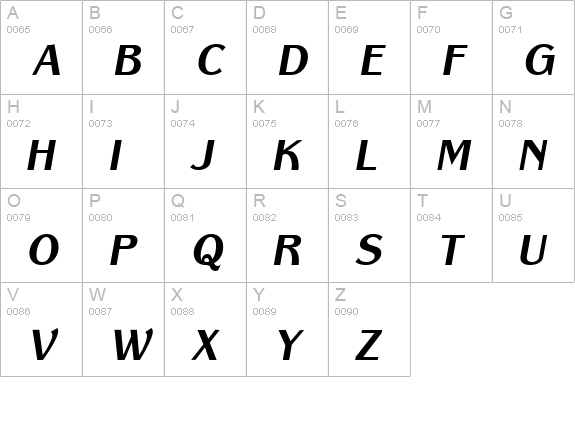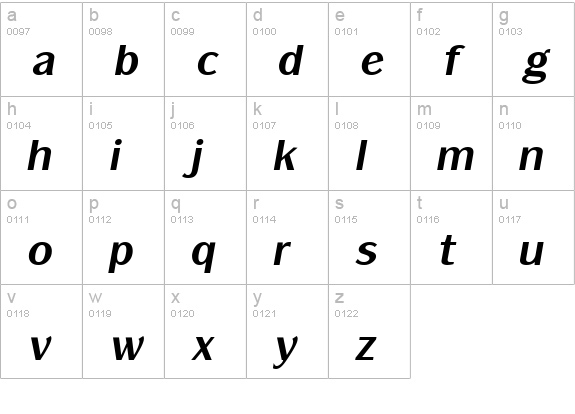
Panache Bold Italic is a strong, high-contrast, italic variant in the Panache typeface family \xE2\x80\x94 well suited to headlines, attention-grabbing titles, and strong calls-to-action.
Panache Bold Italic font is a stunning and captivating typeface that exudes confidence and sophistication. Its bold, italicized design adds a touch of elegance and flair to any project or design. With its sleek and sleek lines, Panache Bold Italic font is the perfect choice for creating eye-catching headlines, stylish logos, or striking branding materials. This font effortlessly combines the classic and the contemporary, making it versatile for a wide range of design purposes. Whether you're creating a modern website, designing a sleek magazine layout, or crafting a unique invitation, Panache Bold Italic font is sure to make a lasting impression. One of the best features of Panache Bold Italic font is its availability as a free download at FontsMarket.com. This means that you can easily access this remarkable font without any cost or hassle. Gone are the days of searching high and low for the perfect font – Panache Bold Italic font is just a few clicks away. With its generous range of characters and glyphs, Panache Bold Italic font allows for endless creative possibilities. The elegant curves and bold strokes effortlessly capture attention, while the italicized slant adds a touch of sophistication. Whether used in print or online, this font is sure to elevate your design to new heights. So, why wait? Download Panache Bold Italic font for free at FontsMarket.com and let your creativity soar. With its timeless elegance and freely available nature, this font is a must-have for any designer or creative professional. Give your projects the Panache they deserve with this bold and captivating typeface.